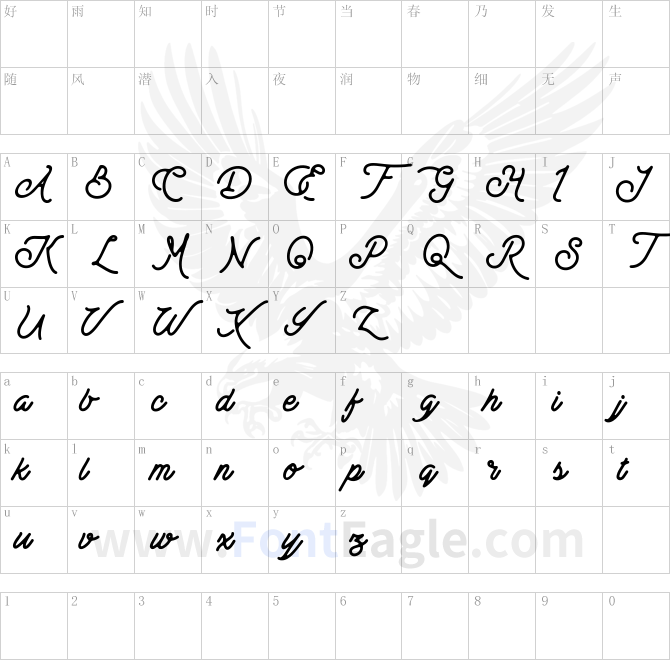
- Font name:Bestters Supply Demo
- Font Subfamily ID:EricKurniawan: Bestters Supply Demo: 2016
- Font Full Name:Bestters Supply Demo
- Postscript:BesttersSupplyDemo